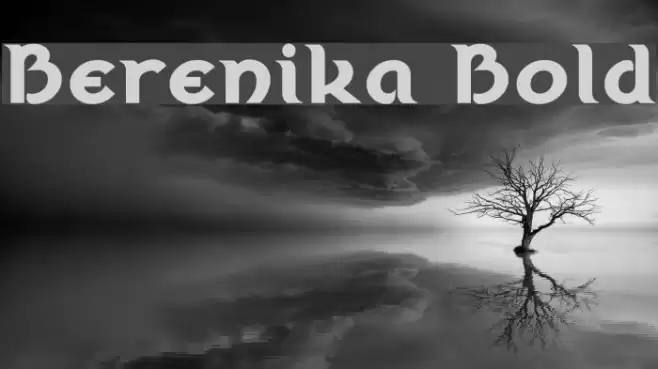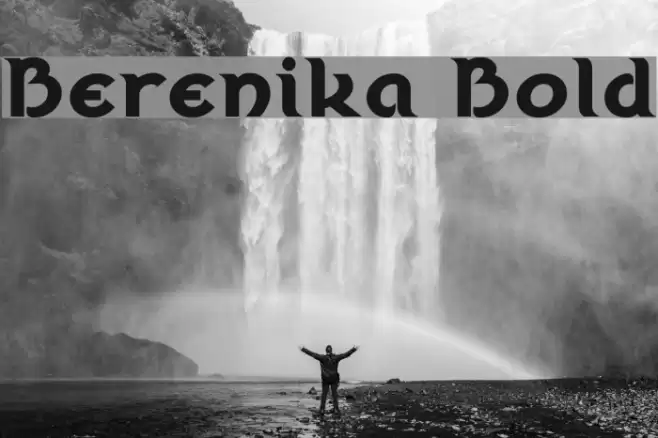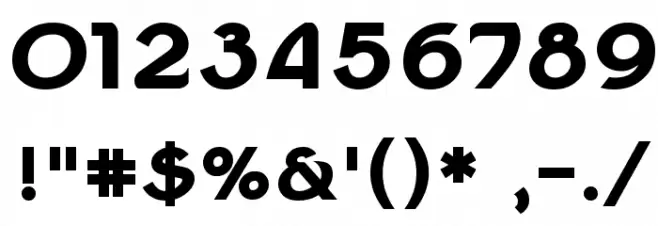
Berenika Bold Font
Berenika Bold Description
This font features a bold and dynamic style with a unique blend of modern and vintage elements. The uppercase letters are characterized by their strong presence and slightly curved edges, giving them a distinctive flair. The lowercase letters maintain a consistent weight, complementing the uppercase with their rounded forms and smooth transitions. The numerals are bold and clear, ensuring readability, while the special characters are designed to match the overall aesthetic, adding a touch of elegance. The font's overall appearance is both striking and versatile, making it suitable for a variety of design applications.
A bold, dynamic font with a blend of modern and vintage elements from Uncategorized fonts.